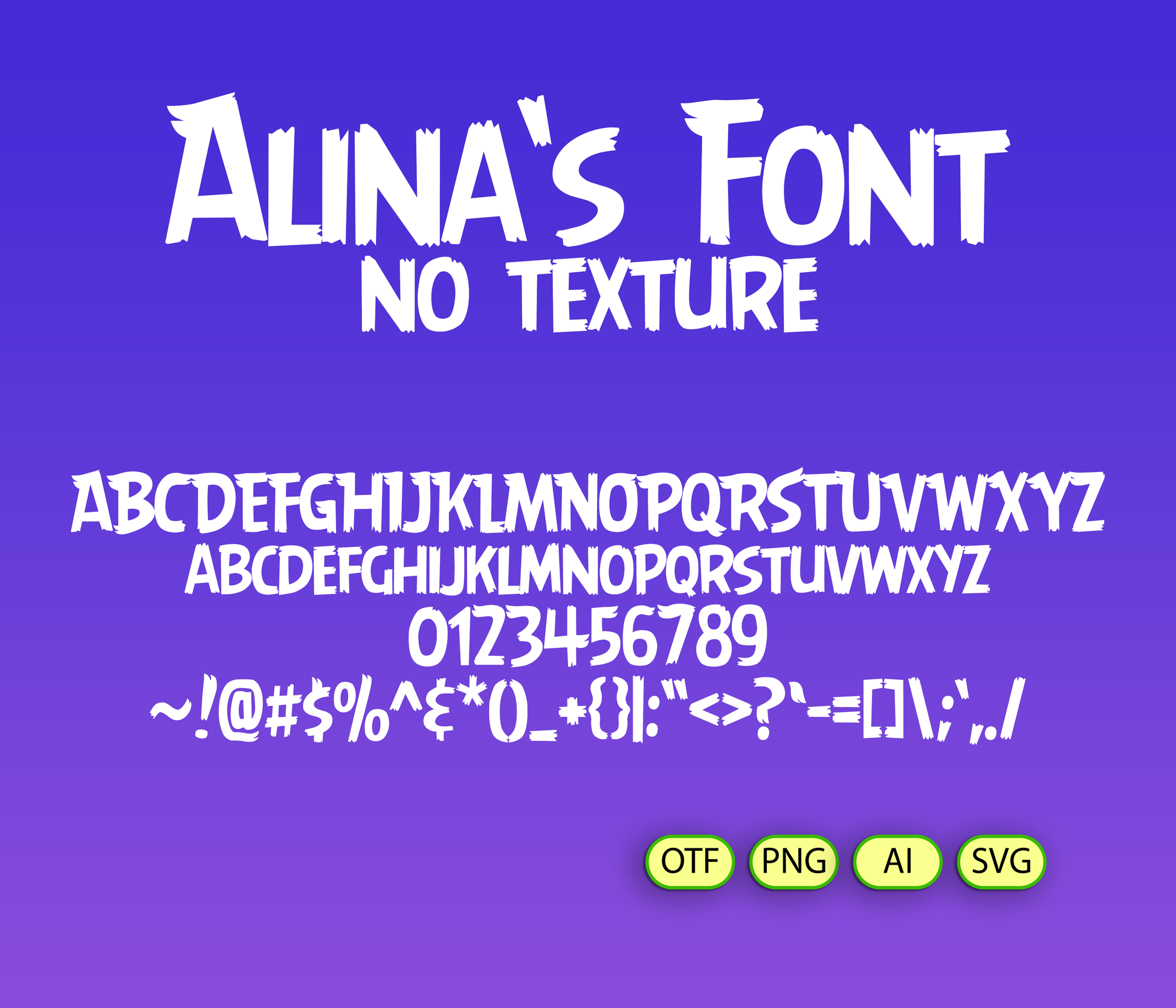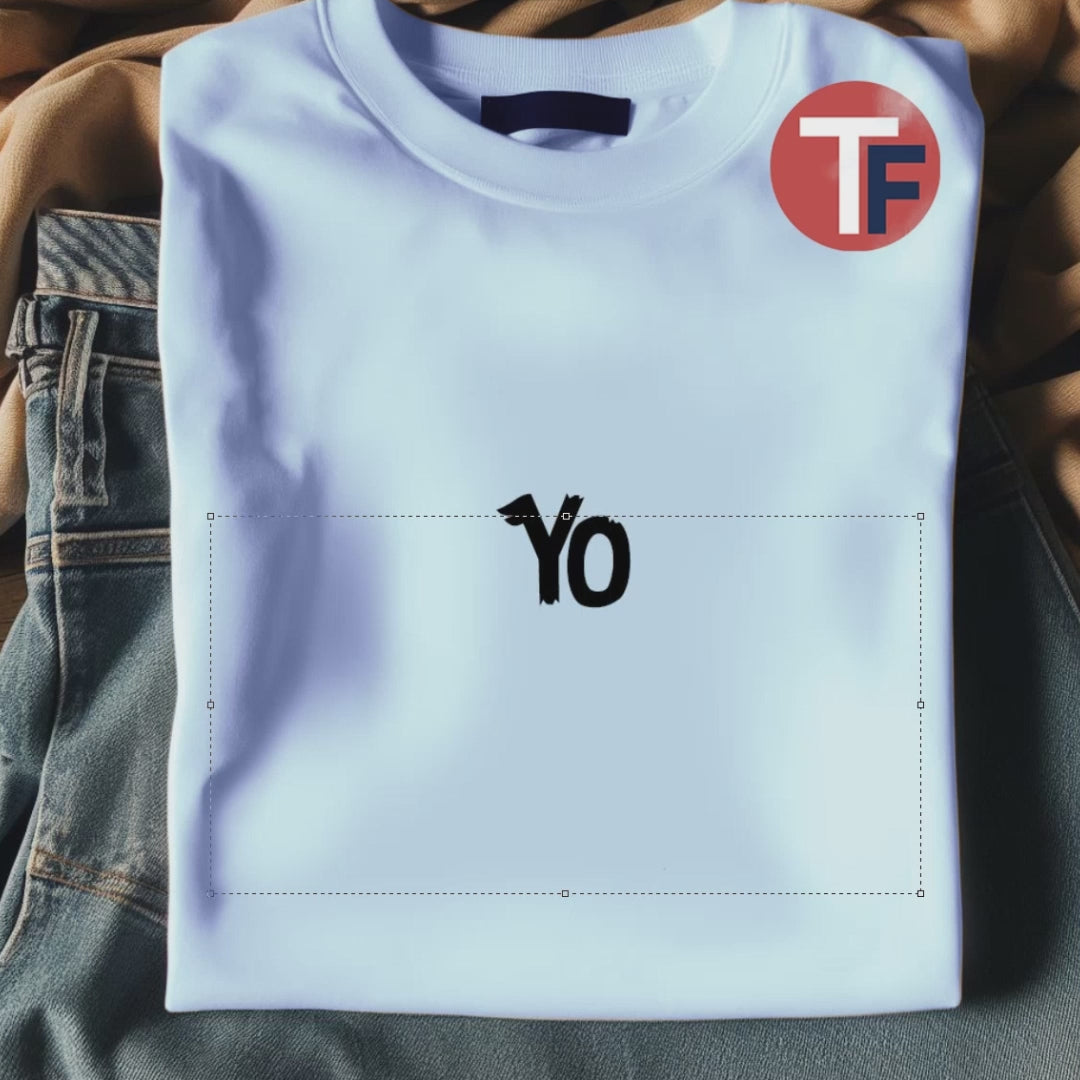
Bird Adventures Font
Catapult Your Creativity with the Bird Adventures Font
Unleash the fun and excitement with our Bird Adventures font, inspired by a beloved game and movie franchise. Perfect for fans, event organizers, and designers, this font captures the playful and energetic spirit of the series, bringing an adventurous essence to your projects. Whether creating event invitations, themed merchandise, or digital content, our Bird Adventures font ensures your creations resonate with the lively spirit of the characters.
Our Bird 3 Adventures-inspired font features bold, dynamic lines and whimsical characters reflecting the fun and action-packed nature of the series. This versatile font is ideal for:
Features and Benefits
• Dynamic and Playful Design: Captures the fun and energetic spirit of the series.
Our Bird Adventures font pays tribute to a popular game and movie series, empowering you to infuse your designs with its fun and dynamic energy. Whether crafting promotional materials, designing unique merchandise, or adding a lively touch to personal projects, this font allows you to communicate with the playful and adventurous spirit that defines Bird Adventures. Ready to catapult your creative projects to new heights? This font is your key.